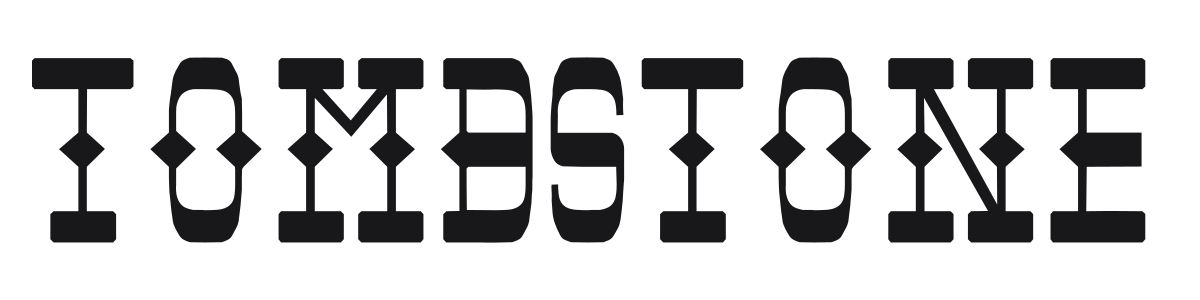
Tombstone
Tombstone is a bold, decorative slab serif from Iconian Fonts that channels the hand-painted lettering of Old West signage and wanted posters. The heavy strokes and vintage character details give it an unmistakable cowboy-era personality, built for headlines, posters, and themed branding where you want something that feels like dusty saloon doors and sun-bleached wood.